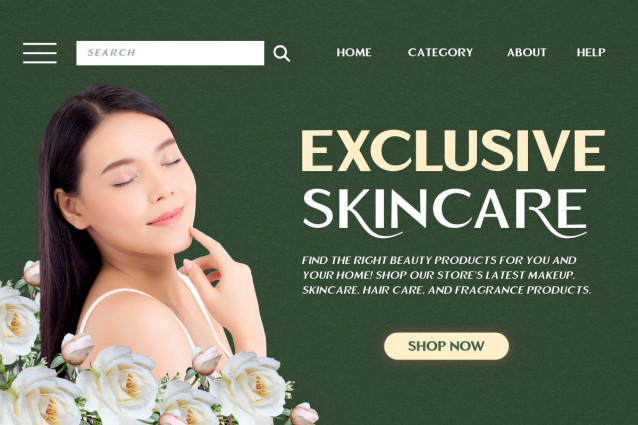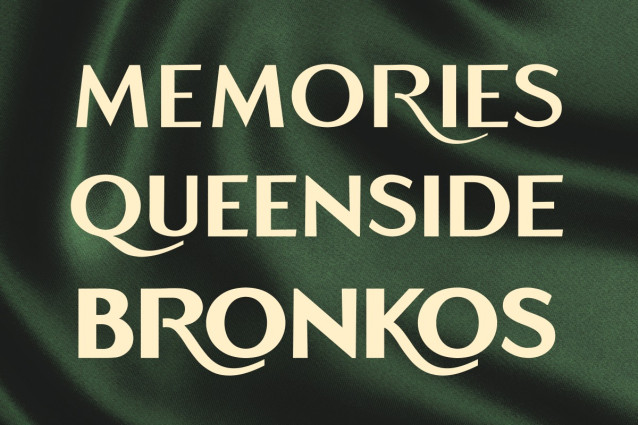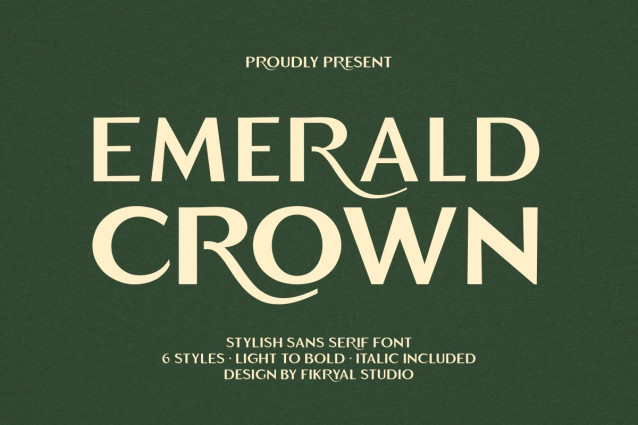
Emerald Crown Font
Emerald Crown Font – Stylish Sans Serif Font is a modern all-caps sans serif typeface designed to deliver a bold, elegant, and premium visual identity. Built with strong proportions and clean geometry, Emerald Crown is crafted for designers who seek clarity, sophistication, and versatility in one font family.
One of its distinctive features is the difference between uppercase and lowercase characters, allowing designers to mix both styles creatively to achieve unique typographic compositions. This approach adds visual rhythm and enhances hierarchy without sacrificing readability.